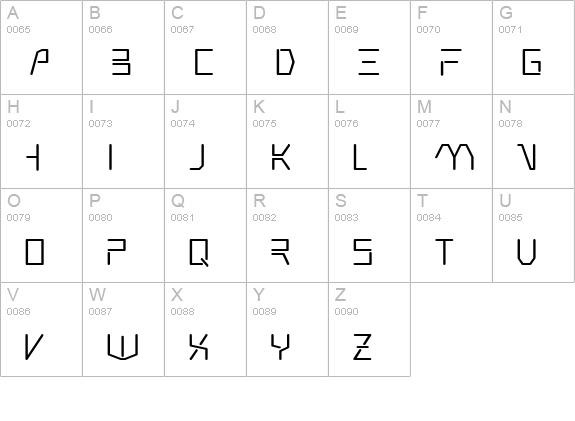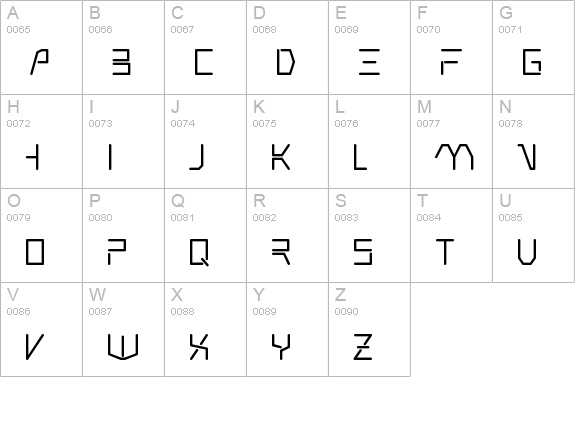
QTRobotic2000 Regular Font Details
QTRobotic2000 Regular is the standard, neutral variant in the QTRobotic2000 typeface family \xE2\x80\x94 well suited to general body text, paragraphs, and standard typographic work.
QTRobotic2000 Regular font is a versatile and stylish typeface that embodies the perfect balance between modernity and simplicity. With its clean lines and bold appearance, this font is sure to make a statement in any design project. The QTRobotic2000 Regular font is the ideal choice for a wide range of applications, from branding and logo design to website headers and advertising materials. It exudes a sense of professionalism and sophistication, while still maintaining a touch of playfulness. One of the standout features of this font is its versatility. Whether you're looking to create a sleek and minimalistic design or a bold and eye-catching layout, QTRobotic2000 Regular font has got you covered. Its wide range of weights and styles makes it easy to find the perfect fit for your project. What makes QTRobotic2000 Regular font even more appealing is that it is freely available to download at FontsMarket.com. This means that you can easily access and use this font in your designs without any hassle or cost. Its availability for free download makes it a valuable asset for both professional designers and aspiring creatives alike. So, whether you're a seasoned designer looking to add a fresh and modern touch to your projects or a beginner looking to experiment with typography, QTRobotic2000 Regular font is the perfect choice. Download it for free at FontsMarket.com and let your creativity soar.